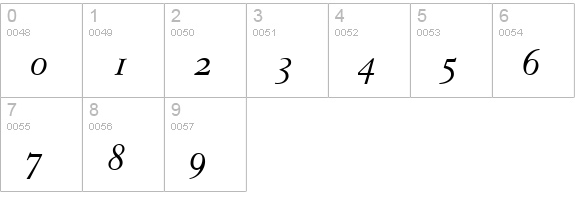
Tiasco OldStyle SSi Italic Old Style Figures is a distinctive, italic variant in the Tiasco typeface family \xE2\x80\x94 well suited to design and typography projects.
The Tiasco OldStyle SSi Italic Old Style Figures font is a timeless and elegant typeface that exudes a classic charm. With its beautifully curved letterforms and graceful slant, this font adds a touch of sophistication to any design project. Featuring old style figures, this font offers a unique twist on traditional number forms. These figures, with their graceful proportions and antique flair, bring a sense of nostalgia to any text. The Tiasco OldStyle SSi Italic Old Style Figures font is perfect for various design applications, including editorial layouts, branding projects, and packaging designs. Its versatility allows it to effortlessly complement both modern and vintage aesthetics. But what truly sets this font apart is its availability. It is freely available to download at FontsMarket.com, making it accessible to designers and enthusiasts alike. Whether you're a professional designer or a hobbyist, you can now enjoy the elegance and charm of the Tiasco OldStyle SSi Italic Old Style Figures font without any cost. So, don't miss out on this opportunity to enhance your designs with a font that combines timeless beauty with the convenience of being freely available. Download the Tiasco OldStyle SSi Italic Old Style Figures font today and add a touch of classic elegance to your next project.